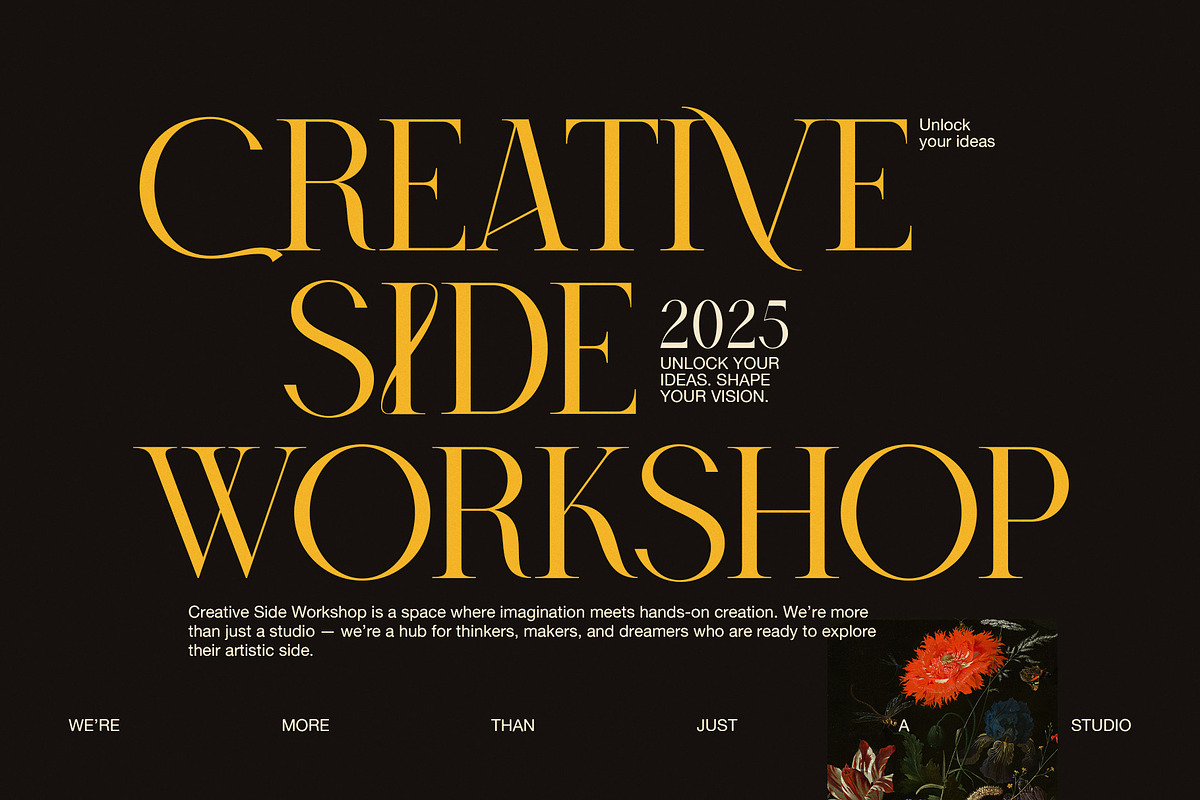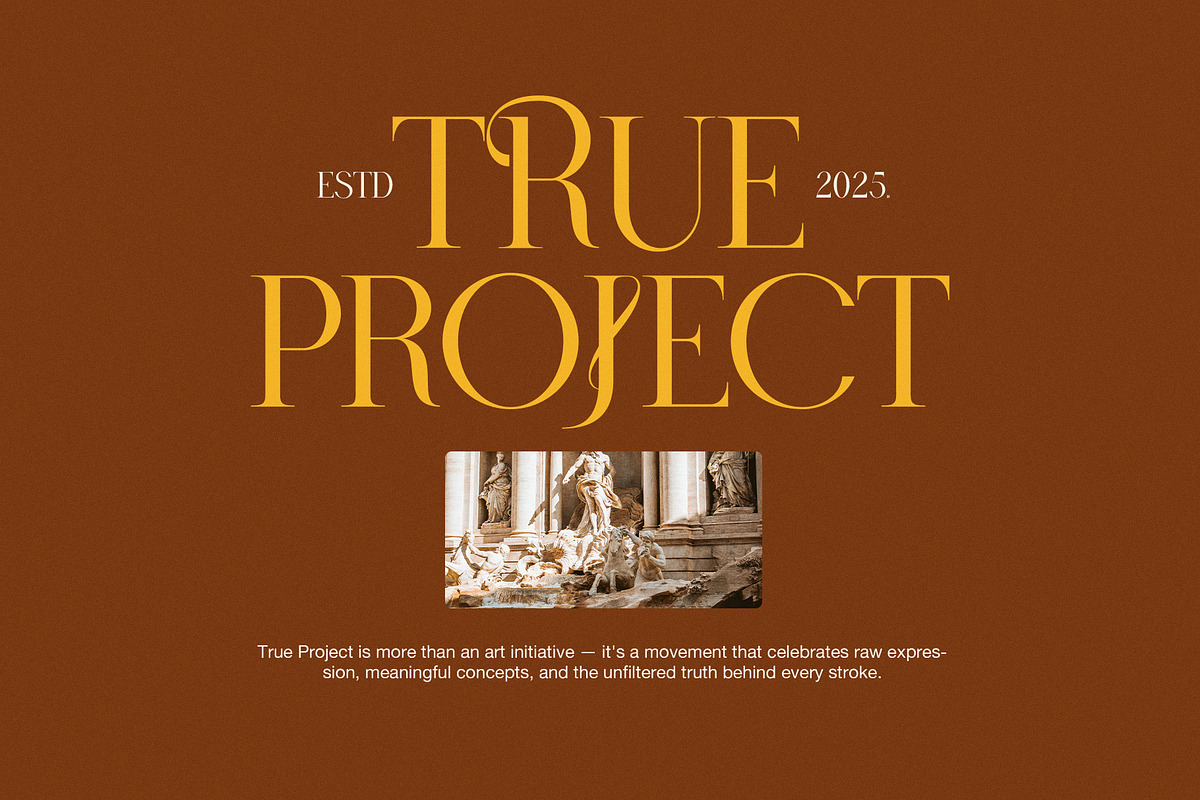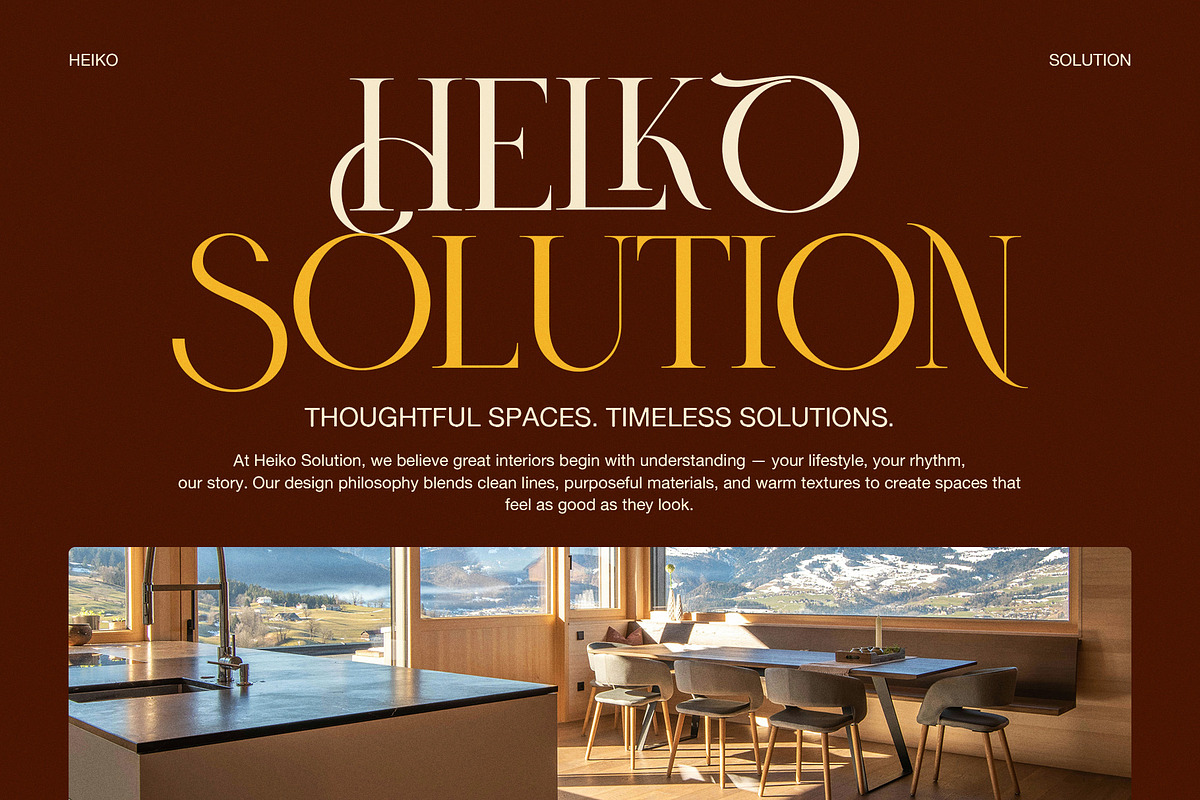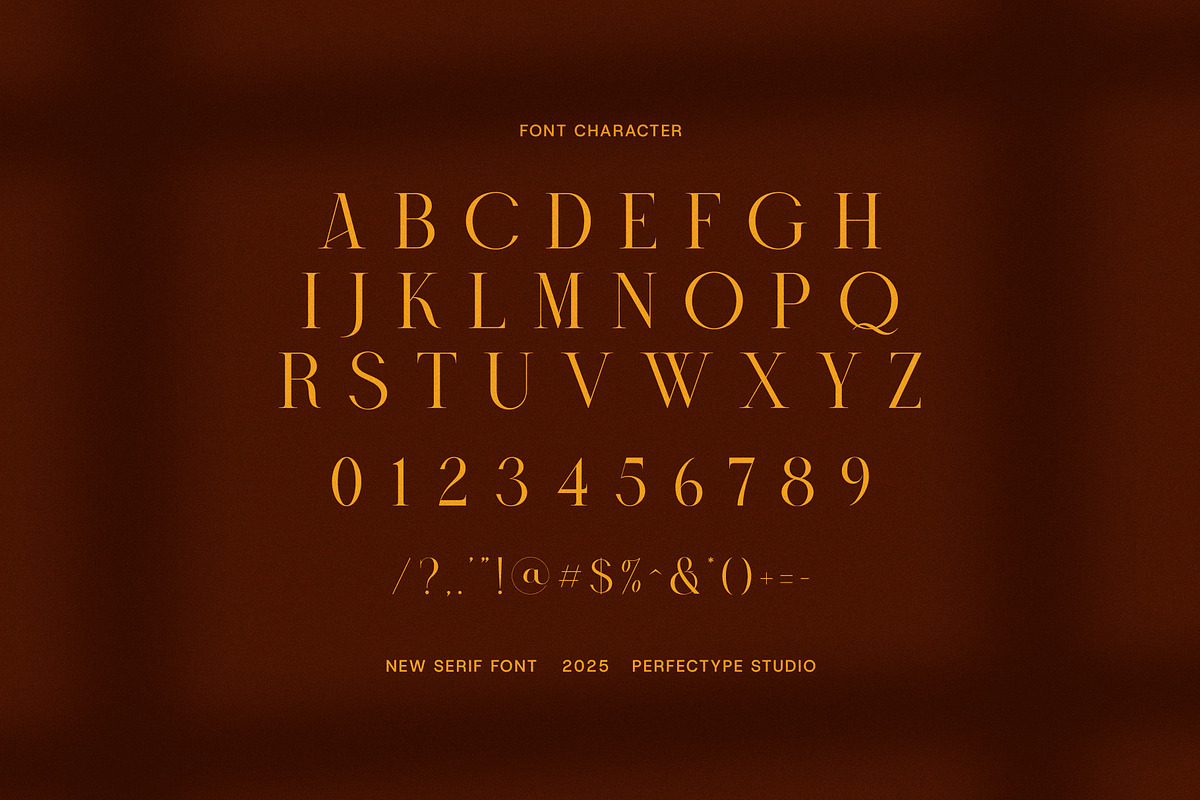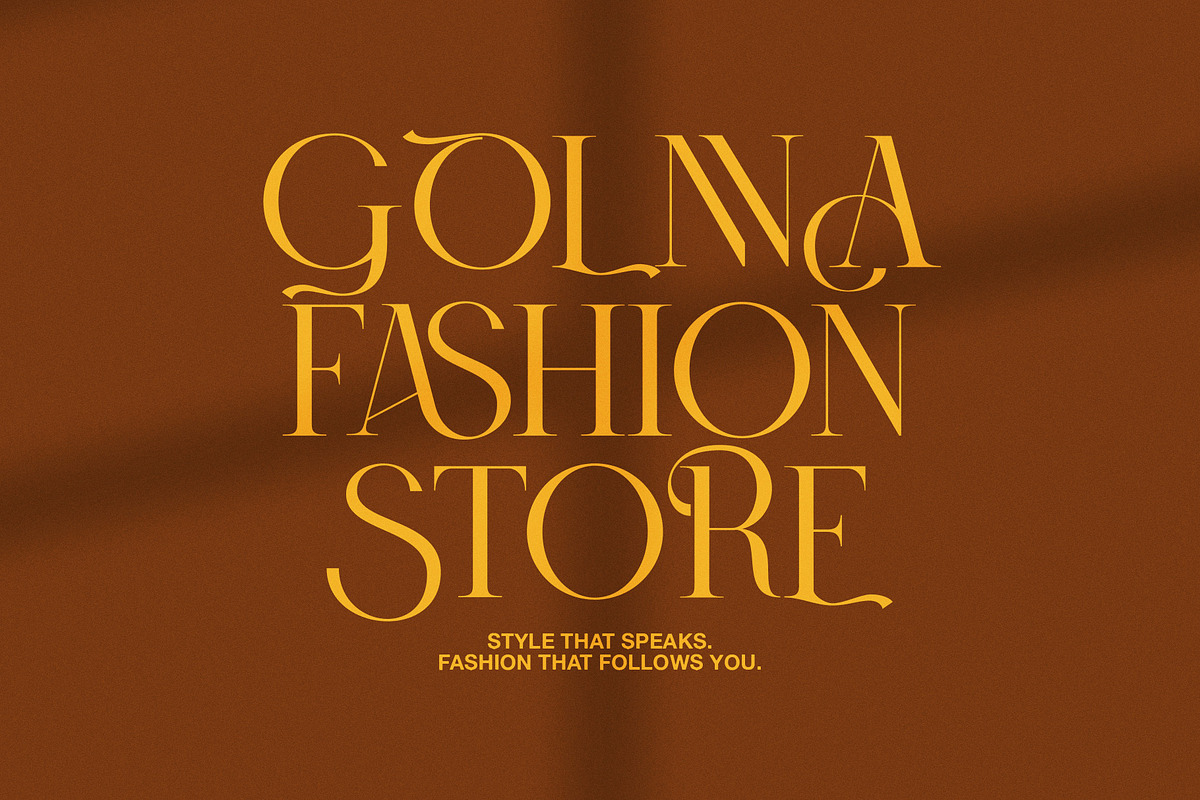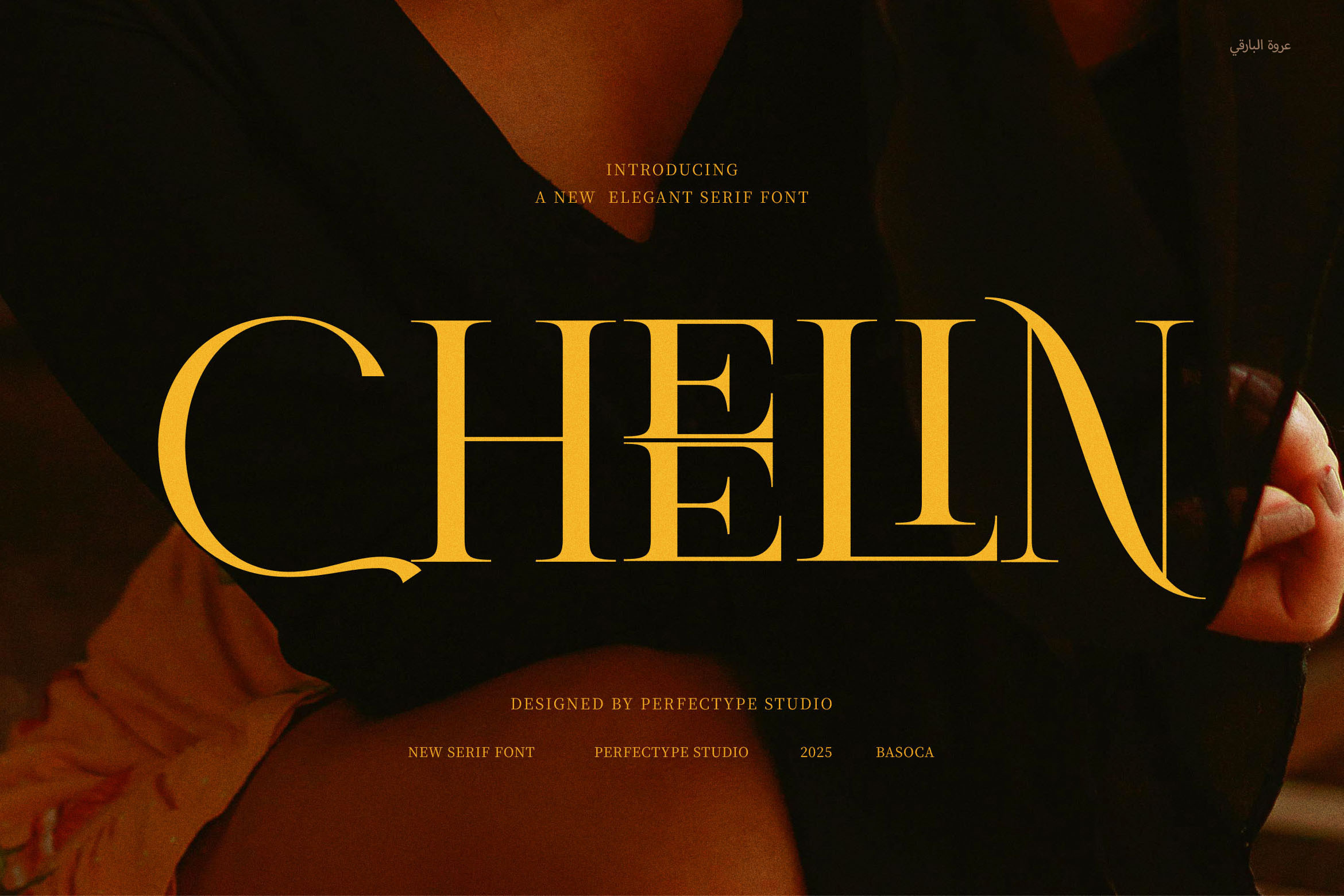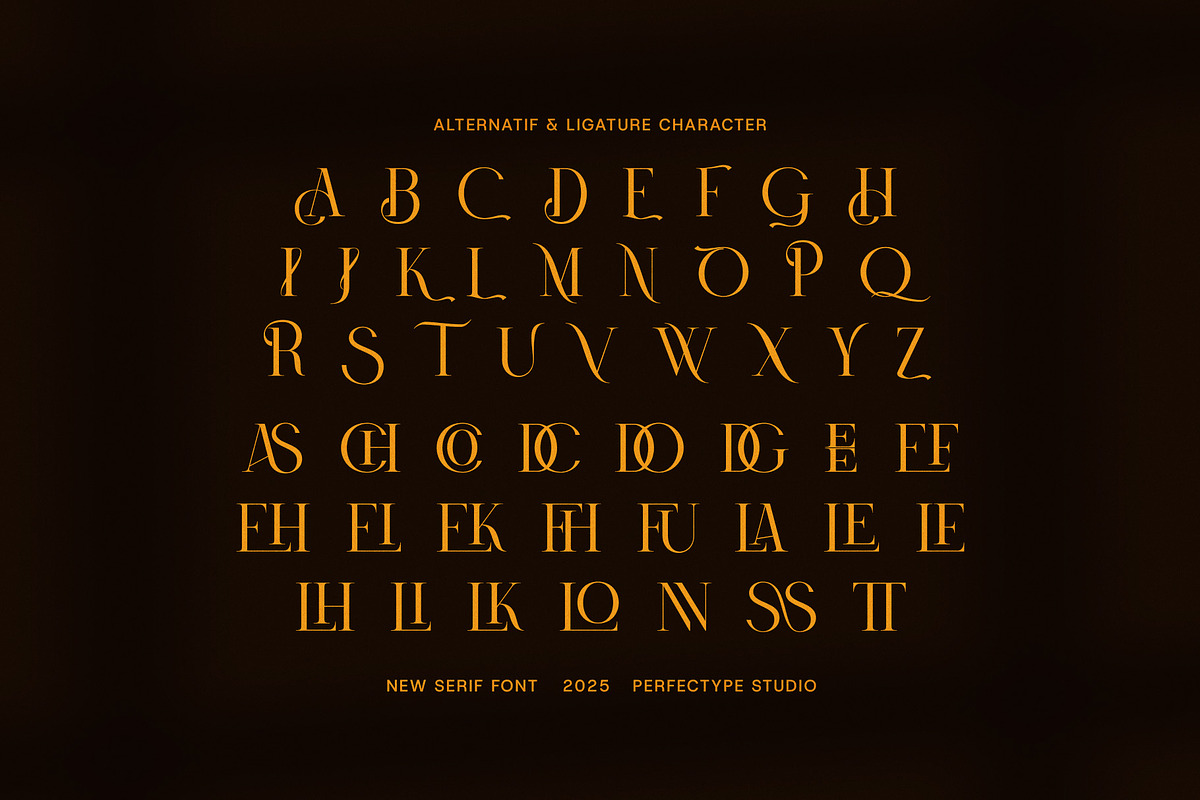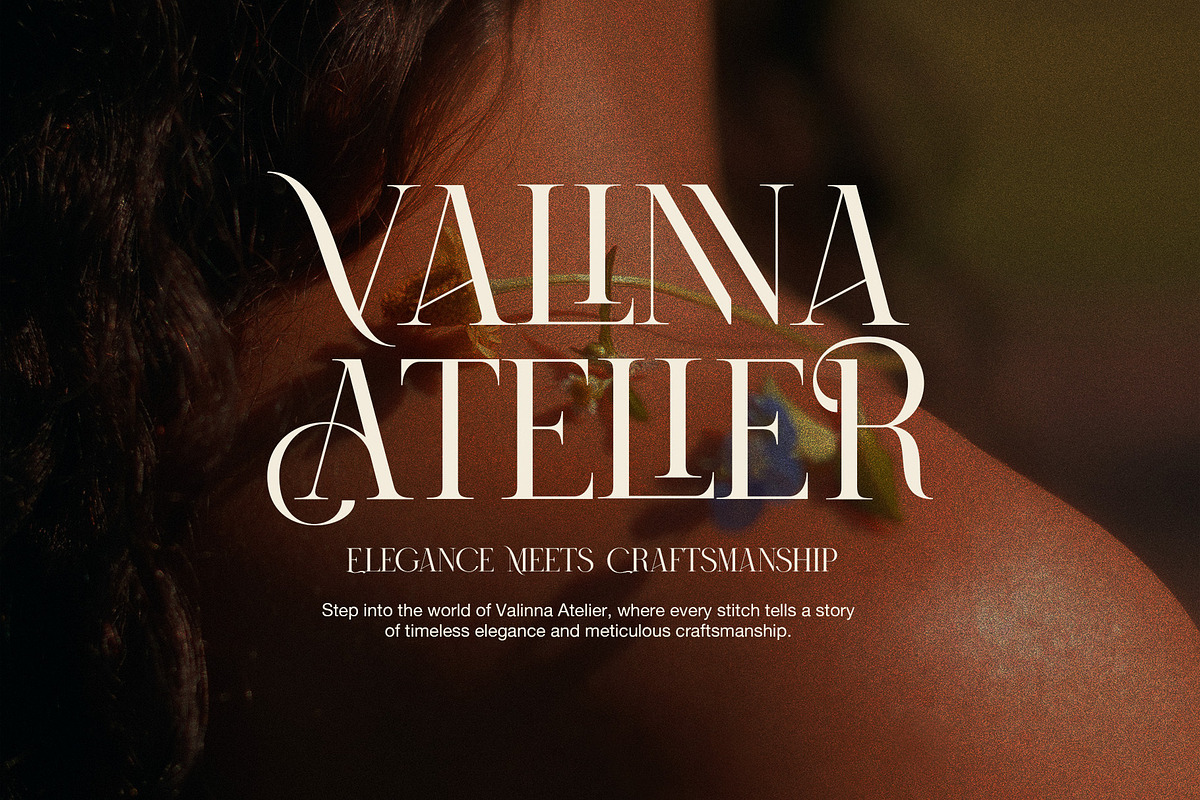
Cheelin Elegant Serif Font
Cheelin Elegant Serif Font – Timeless Sophistication for Modern Branding
Cheelin Elegant Serif Font is a refined and contemporary serif typeface that brings beauty and balance to every design. Designed with smooth curves, proportional spacing, and functional ligatures, Cheelin creates a polished visual identity—whether used for digital media or elegant print layouts.
With its high readability and luxurious feel, Cheelin is perfect for designers who want a font that looks sophisticated while staying versatile. Whether you're crafting a luxury logo, editorial layout, product packaging, or an upscale website, this font delivers both functionality and flair.
Its professionally designed ligatures enhance every word, making it feel custom-crafted while still easy to read. This feature alone makes Cheelin ideal for premium branding projects, where every detail matters.
Cheelin is perfect for:
Luxury logo design and brand identity
Website titles and hero banners
Magazine and editorial headlines
Premium packaging and product labels
Boutique marketing and ads
Food and beverage branding
Event invitations and menus
Whether you’re creating for fashion, lifestyle, food, or tech, Cheelin’s elegant serif form offers timeless design power for every platform.